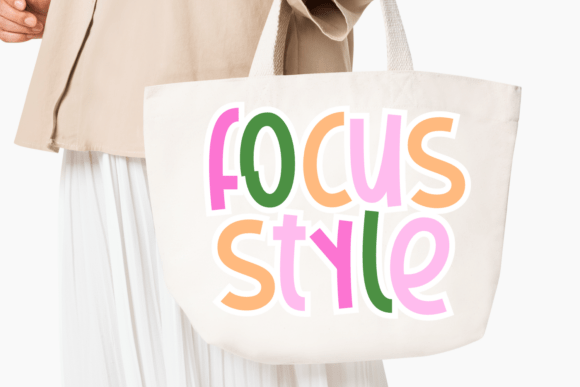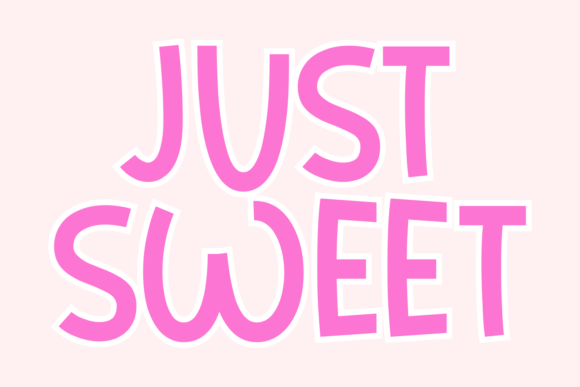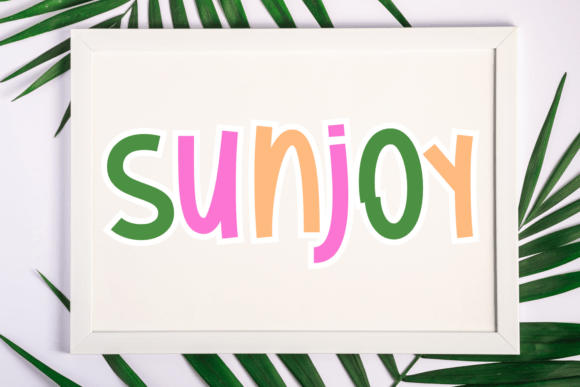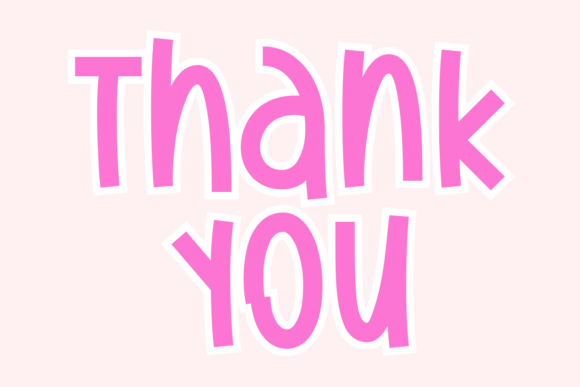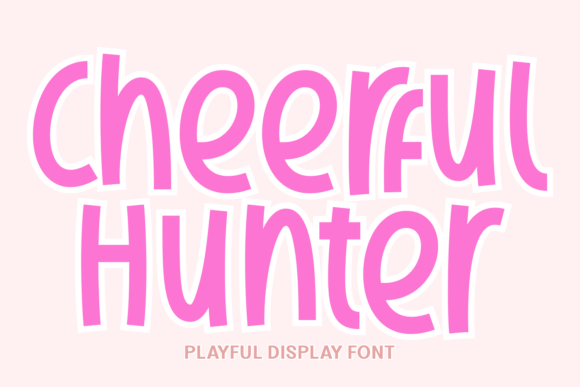
Unearth the Jubilant Spirit of Cheerful Hunter Fonts
Are you a designer or crafter looking for a font that embodies the playful and imaginative spirit of childhood? Look no further than Cheerful Hunter Fonts! These delightful fonts are designed to bring a sense of joy and wonder to any project, making them perfect for creating a compelling brand image or logo for a toy store, baby clothing brand, or kindergarten.
Cheerful Hunter Fonts boast a beautiful, handwritten charm that is sure to capture the hearts of designers and crafters alike. With their organic shapes and striking artistry, these fonts seamlessly combine the best of both worlds to create a truly unique and captivating visual experience. Whether you’re designing for a children’s brand or simply want to add a touch of whimsy to your project, Cheerful Hunter Fonts are the perfect choice.
One of the standout features of Cheerful Hunter Fonts is their incredible versatility. These fonts can be used in a wide range of applications, from learning modules and educational posters to inviting daycare logos and snack packaging. Imagine being able to create a cohesive brand image across multiple platforms, all while maintaining a consistent and playful visual identity. With Cheerful Hunter Fonts, this is now a reality.
Spark Imagination with Cheerful Hunter Fonts
Cheerful Hunter Fonts have a way of sparking imagination and creativity, making them perfect for projects that require a little extra flair. Whether you’re designing for a toy store, baby clothing brand, or kindergarten, these fonts are sure to inspire. Their playful and uplifting nature makes them ideal for creating engaging and interactive designs that will capture the attention of children and adults alike.
With Cheerful Hunter Fonts, the design possibilities are endless! Use these fonts to create:
• Compelling brand images and logos for toy stores, baby clothing brands, and kindergartens
• Engaging learning modules and educational posters
• Inviting daycare logos and signage
• Fun and playful snack packaging and milk cartons
• Delightful birthday gift boxes and greeting cards
• Exciting t-shirt headlines and charming mug designs
• Whimsical wall stickers and children’s room décor
• Personalized keychains and more!
What Sets Cheerful Hunter Fonts Apart
So, what sets Cheerful Hunter Fonts apart from other fonts on the market? Here are just a few key features that make these fonts truly special:
• Unique, handwritten charm that adds a personal touch to any design
• Organic shapes and striking artistry that create a captivating visual experience
• Incredible versatility, making them suitable for a wide range of applications
• Playful and uplifting nature that sparks imagination and creativity
In conclusion, Cheerful Hunter Fonts are the epitome of playful and imaginative design. With their unique, handwritten charm and incredible versatility, these fonts are perfect for designers and crafters looking to add a touch of whimsy to their projects. Whether you’re designing for a children’s brand or simply want to create a compelling brand image, Cheerful Hunter Fonts are the perfect choice. So why wait? Unearth the jubilant spirit of Cheerful Hunter Fonts today and bring a sense of joy and wonder to your designs!